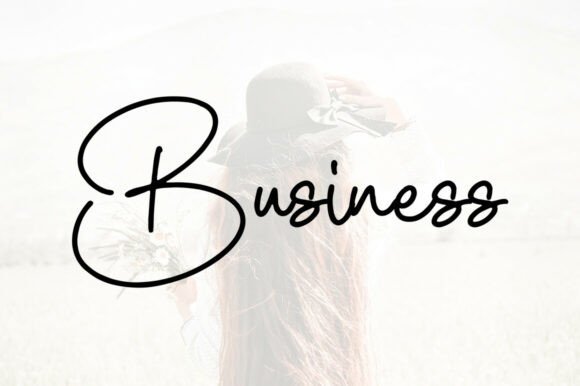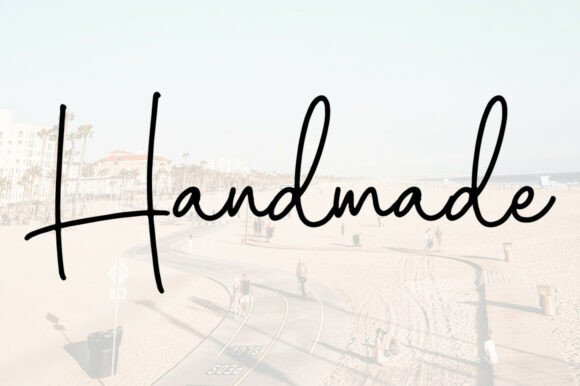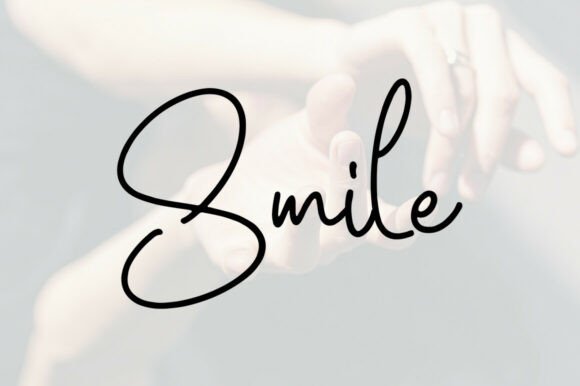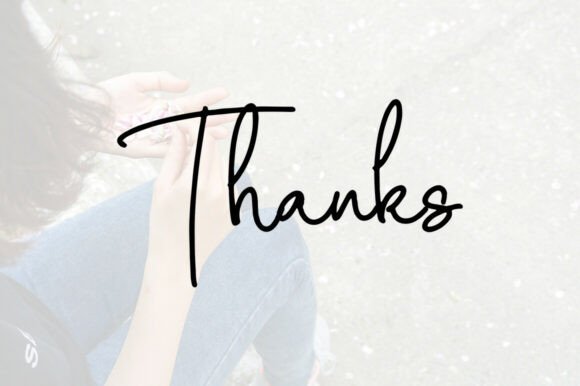
Birthdays Just Got a Whole Lot Sweeter with Birthday Font
Have you ever stared at a blank piece of paper, wondering how to convey the perfect mix of love, excitement, and joy for a special occasion? We’ve all been there – whether it’s a wedding, a birthday, or a milestone anniversary. And then, like a breath of fresh air, the perfect font comes along to make our designs sparkle. Enter the Birthday Font, a delightful handwritten font that adds a touch of whimsy and playfulness to any design.
Designed to bring a smile to the faces of those celebrating, the Birthday Font is a treasure trove for designers looking to add a fun and festive vibe to their projects. Whether you’re crafting wedding invitations, birthday cards, or any other design that needs a dash of personality, this font is sure to be a hit. Its friendly and cute aesthetic makes it the perfect addition to any design portfolio.
Birthday Font Key Features
- Font Family: Birthday Font is a unique, hand-drawn font designed specifically for celebrating birthdays.
- Unique Characteristics: Features playful, cursive script with decorative flourishes, making it ideal for birthday invitations, party decorations, and other celebratory materials.
Birthday Font Review
Overall, I think Birthday Font is a cute and playful font that’s perfect for birthday invitations, party decorations, and other celebrations. Here are some things that work well:
- ✨ Whimsical feel: Birthday Font has a fun, carefree vibe that’s sure to put a smile on people’s faces.
- ✨ Customizable: This font comes in a variety of styles and colors, making it easy to match your party’s theme.
- ✨ Easy to read: Despite its playful feel, Birthday Font is still easy to read, even at smaller sizes.
- ⚠️ Limited use: Birthday Font is best suited for casual, celebratory purposes. It may not be the best choice for formal or professional applications.
- ⚠️ Overuse: With its playful feel, Birthday Font can start to feel cheesy or overused if you use it too much.
Overall, I think Birthday Font is a great choice for birthday parties and other celebrations. Just be mindful of its limitations and use it sparingly to avoid overuse. With the right application, Birthday Font can add a touch of whimsy and fun to your designs.
Birthday Font is commonly used for:
1. Birthday invitations and party decorations.
2. Personalized gift tags and cards.
3. Social media posts and graphics.
4. Customized party banners and signs.
Alternatives to Birthday Font for Designers
Great Vibes is a modern, cursive font that is perfect for creating a playful and celebratory atmosphere. It’s ideal for use on social media, greeting cards, and other digital platforms where a fun and dynamic font is needed. Compared to Birthday Font, Great Vibes is more versatile and can be used for a wider range of applications.
Carolyna Pro is a beautiful, elegant script font that is perfect for creating a sophisticated and luxurious atmosphere. It’s ideal for use on high-end branding, wedding invitations, and other special occasions where a refined and polished font is needed. Compared to Birthday Font, Carolyna Pro is more formal and less playful, making it a great alternative for designers who want to create a more mature and elegant look.
Pacifico is a beautiful, modern script font that is perfect for creating a relaxed and beachy atmosphere. It’s ideal for use on summer branding, beach-themed designs, and other projects where a carefree and laid-back font is needed. Compared to Birthday Font, Pacifico is more laid-back and less celebratory, making it a great alternative for designers who want to create a more casual and effortless look.